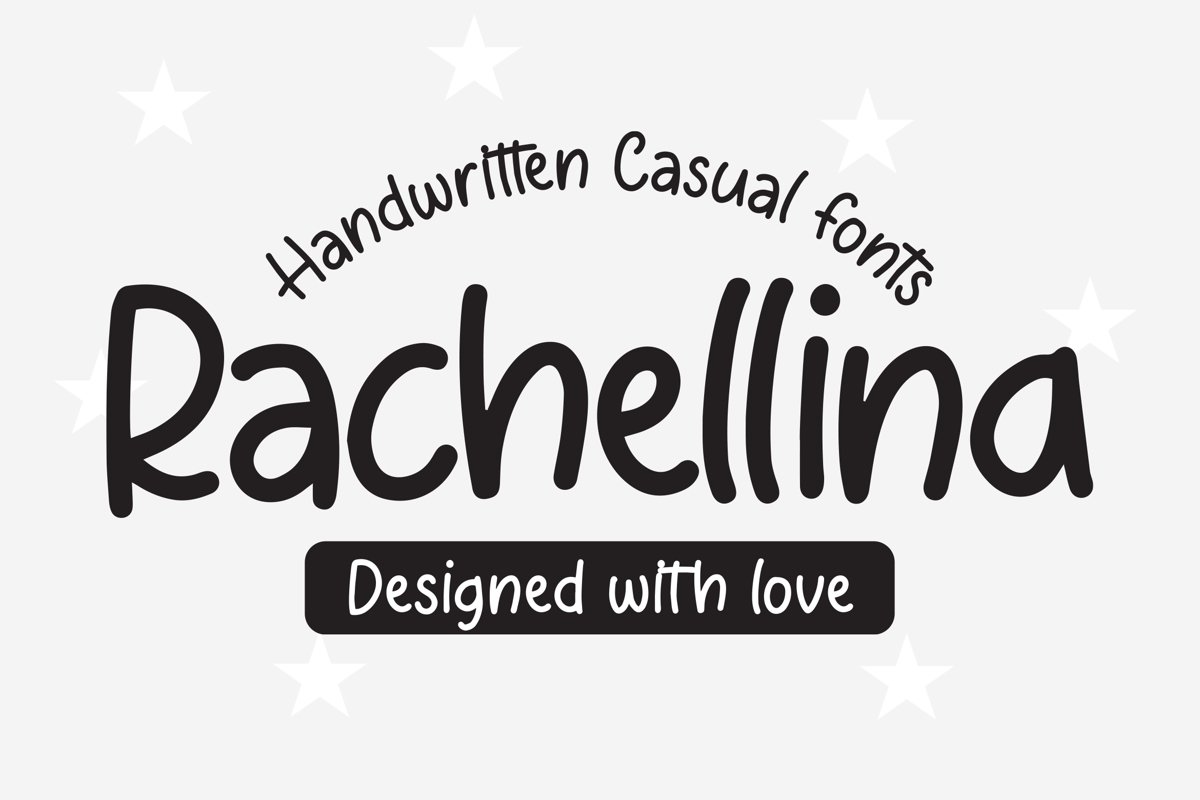
Rachellina - Handwritten Casual Font that contain lowercase, uppercase, symbol, and also support multi language. There’s a lot ligatures in this font. This Font also comes with ligatures, alternates and many more. this font suitable for fashion, branding, catalog and other design what you want.
Rachellina